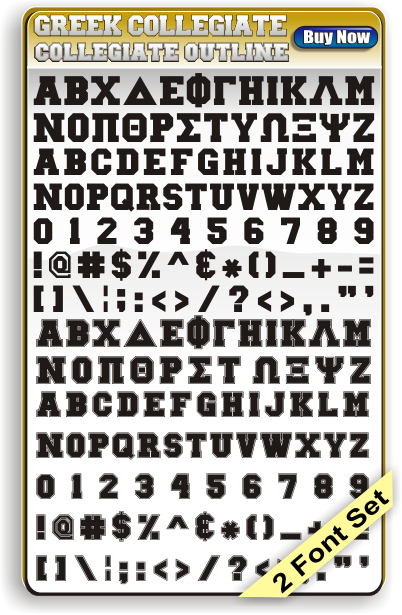
Greek House of Fonts ::"GREEK COLLEGIATE FONT SET"
GreekFont Collegiate Font Set
Collegiate Solid font:
Collegiate Solid Font
Collegiate Outlined font:
Collegiate Outlined Font
Both Greek font styles have 90 characters, 24 of them are the Greek alphabet, the rest of the set contains the regular 26 character Latin alphabet as well as the full number set and all the regular key symbols located on your keyboard.
These fonts are considered: Bold fonts
Greek Collegiate Font Set